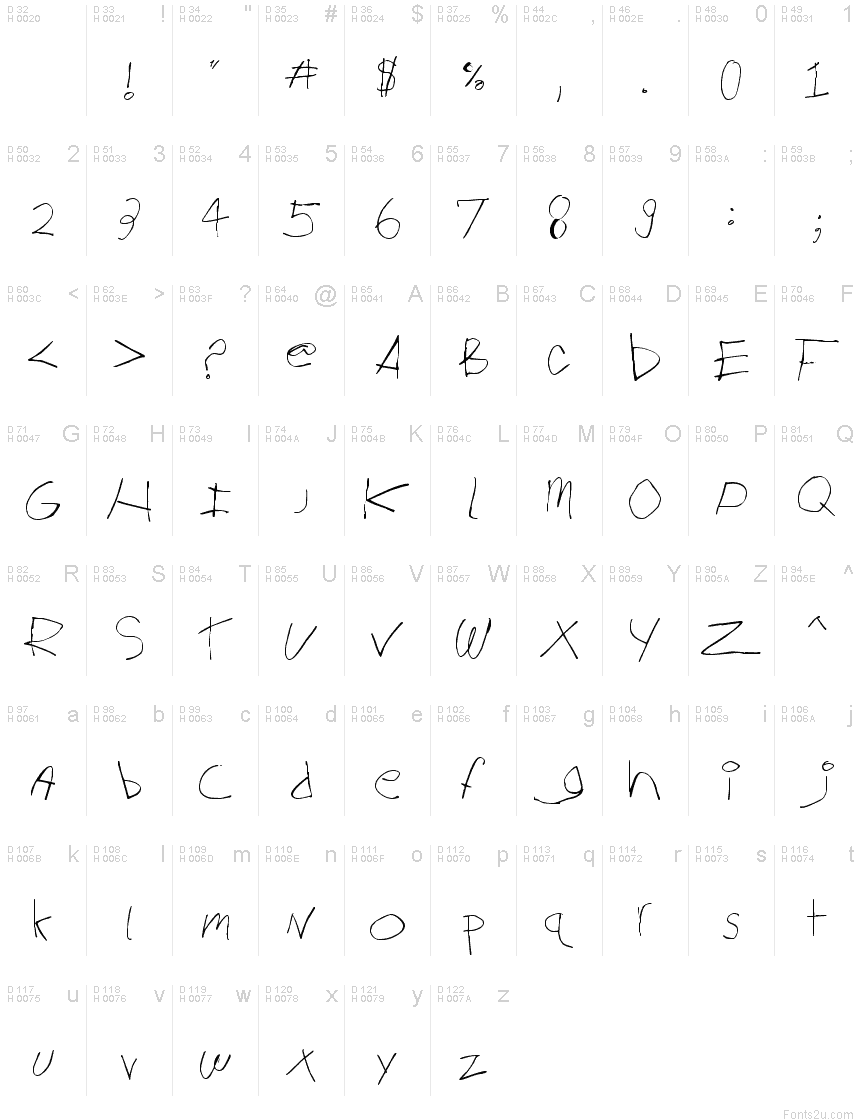
Big Log
Big Log font by Tommy Cary is a free handwritten typeface that looks like it’s been scrawled in the margins of a well‑worn notebook. The line is thin, a little shaky, and slightly uneven, giving every word a loose, unfiltered energy. Letters stretch and sag in different directions, so your text feels spontaneous and human, as if it’s been dashed off in one go with a scratchy marker.
Using Big Log, you can bring that raw, diary-page honesty to zines, indie posters, album art, comics lettering, YouTube thumbnails, sticker designs, and personal blog graphics. This free font shines when you keep it big and bold, then anchor it with a simple sans-serif for captions or body copy.